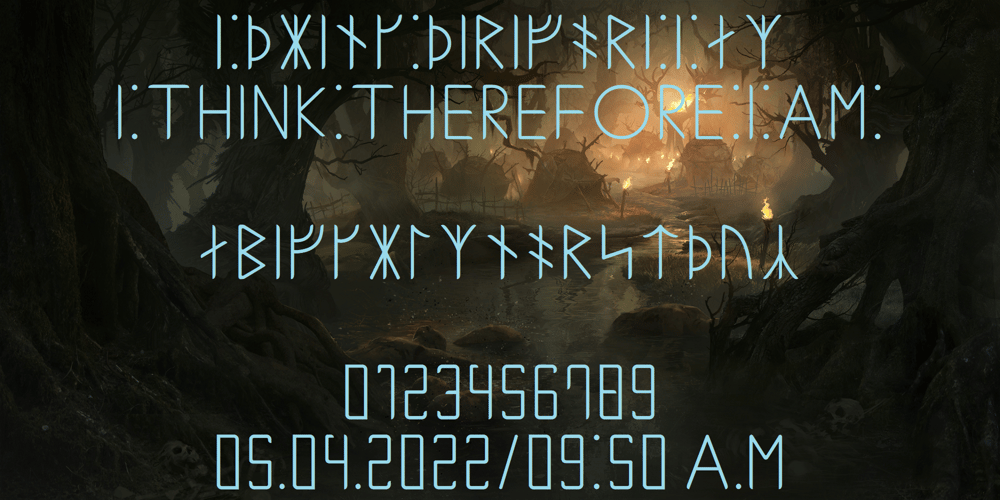
Ongunkan Younger Futhark
Ongunkan Younger Futhark font
Ongunkan Younger Futhark Font Family was designed by Osman Nuri ALKAN and published by Runic World Tamgacı. Ongunkan Younger Futhark contains 1 styles and family package options. The Younger Futhark, also called Scandinavian runes, is a runic alphabet and a reduced form of the Elder Futhark, with only 16 characters, in use from about the 9th century, after a “transitional period” during the 7th and 8th centuries. The reduction, somewhat paradoxically, happened at the same time as phonetic changes that led to a greater number of different phonemes in the spoken language, when Proto-Norse evolved into Old Norse. Also, the writing custom avoided carving the same rune consecutively for the same sound, so the spoken distinction between long and short vowels was lost in writing. Thus, the language included distinct sounds and minimal pairs that were written the same.The Younger Futhark is divided into long-branch (Danish) and short-twig (Swedish and Norwegian) runes; in the 10th century, it was further expanded by the “Hälsinge Runes” or staveless runes.The lifetime of the Younger Futhark corresponds roughly to the Viking Age. Their use declined after the Christianization of Scandinavia; most writing in Scandinavia from the 12th century was in the Latin alphabet, but the runic scripts survived in marginal use in the form of the medieval runes (in use ca. 1100–1500) and the Latinised Dalecarlian runes (ca. 1500–1910)